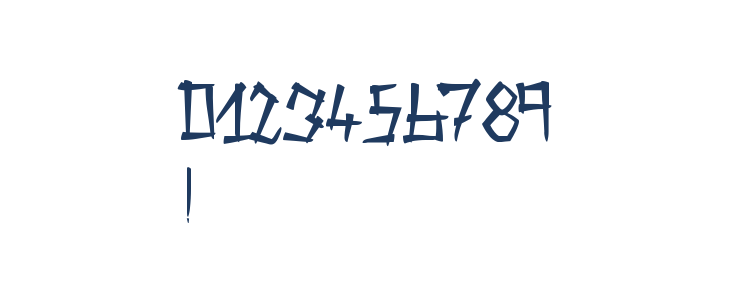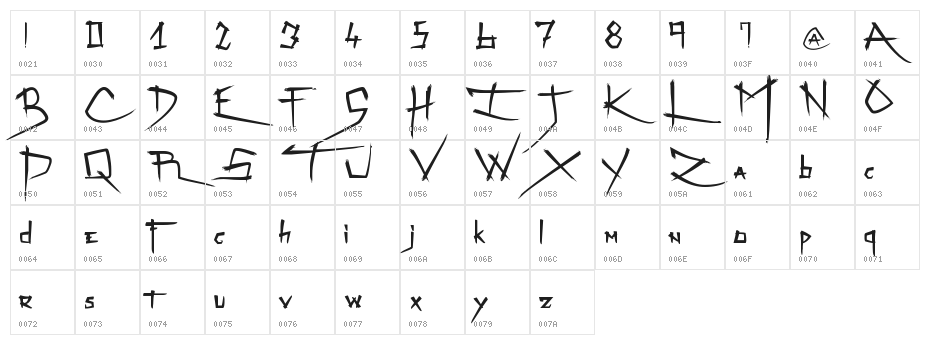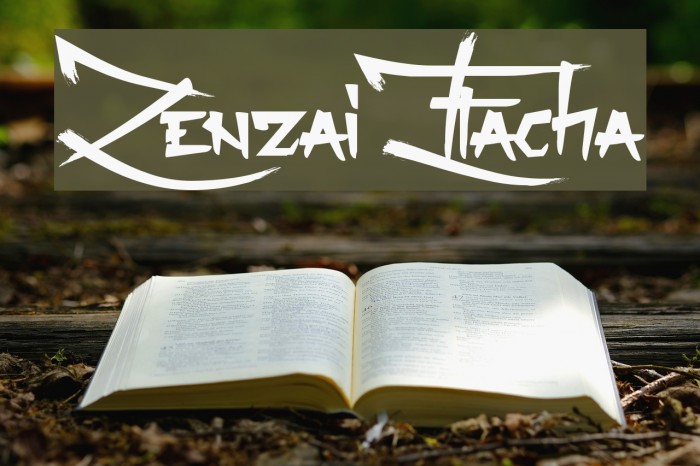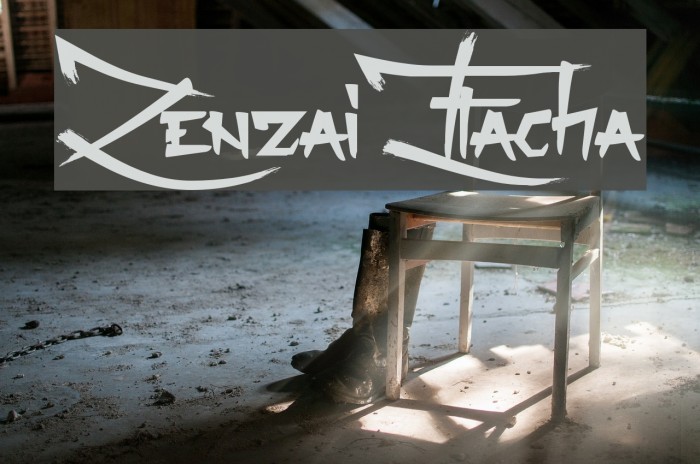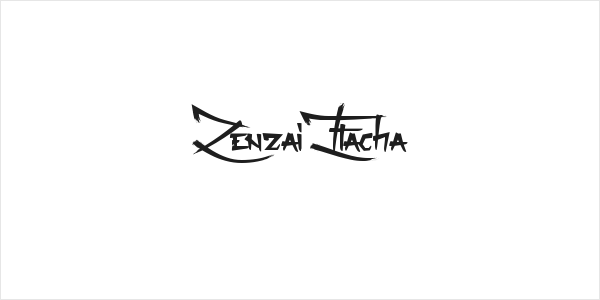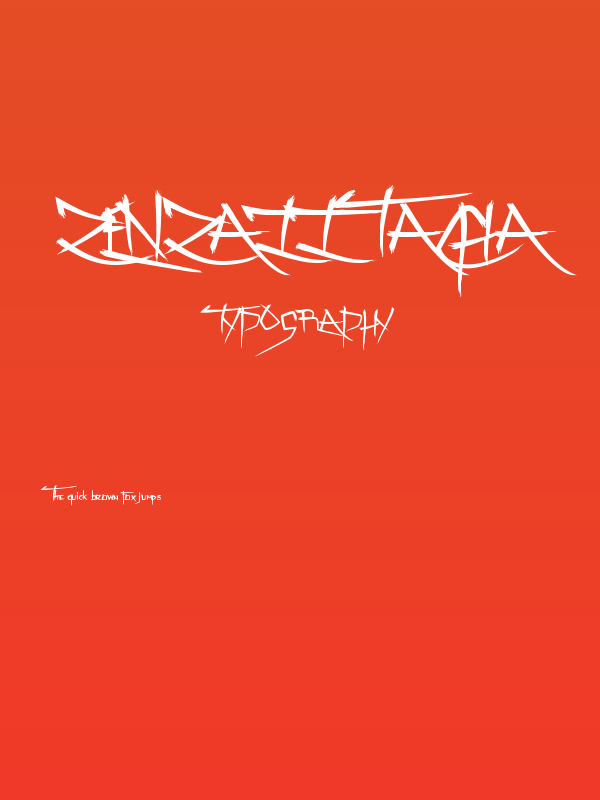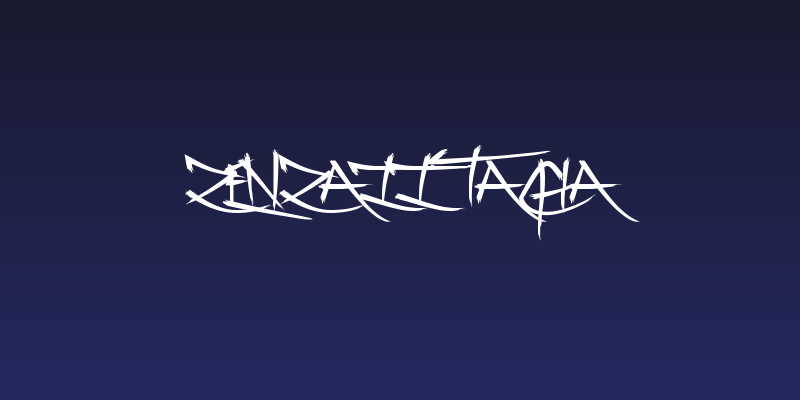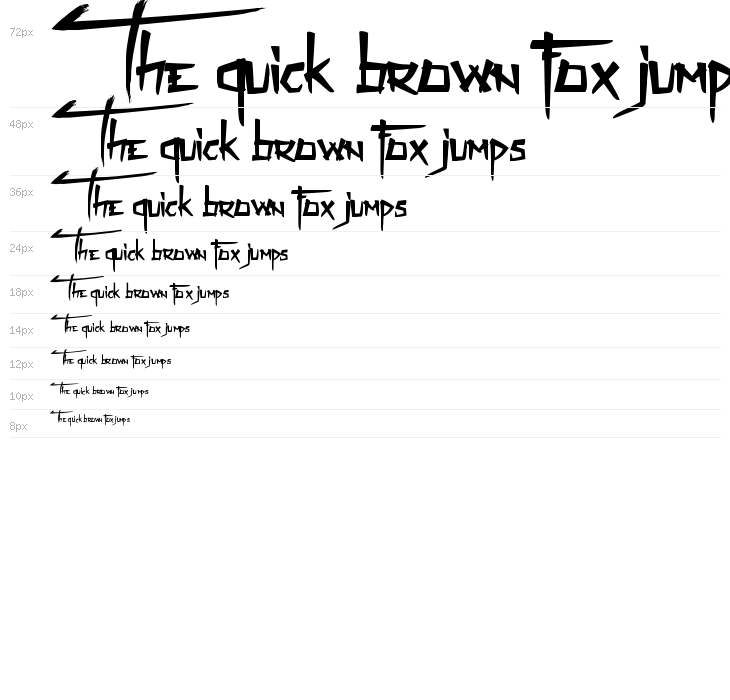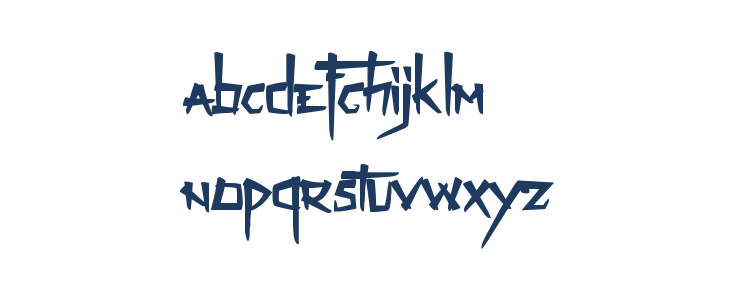
Zenzai Itacha Font
Zenzai Itacha Description
This font features a highly stylized, edgy design with sharp angles and a graffiti-like aesthetic. The uppercase letters are bold and dynamic, with exaggerated strokes that create a sense of movement and energy. The lowercase letters maintain this energetic style, though they are slightly more compact. Numbers and special characters follow the same design principles, ensuring consistency across the character set. The overall appearance is striking and unconventional, making it ideal for projects that require a bold statement.
| Overall Style | Modern, Urban |
| Use Case | Logos, Posters, Album covers |
| Proposed Projects | Ideal for street art designs, edgy branding, music album covers, and urban-themed posters. |